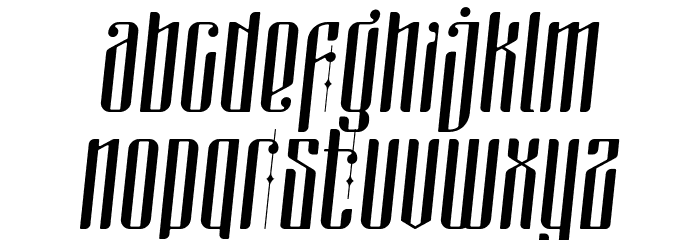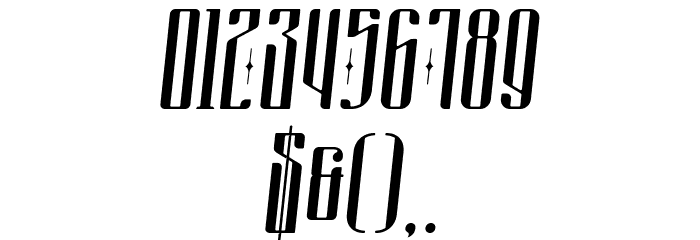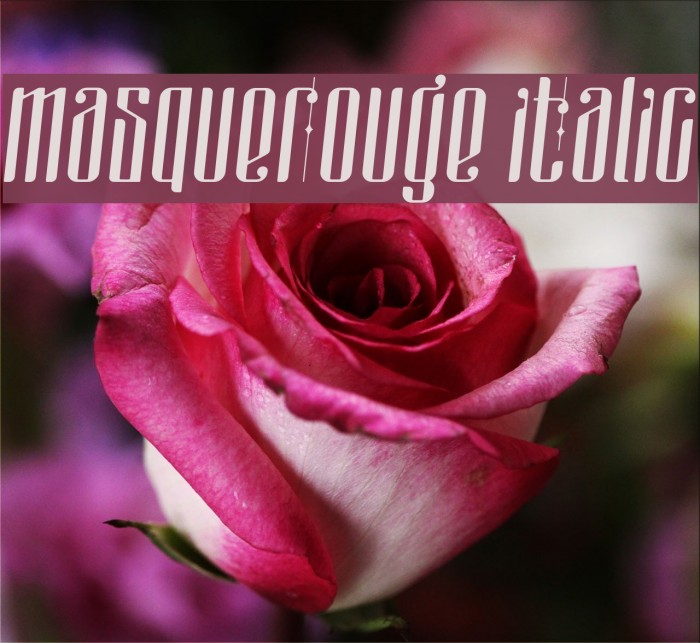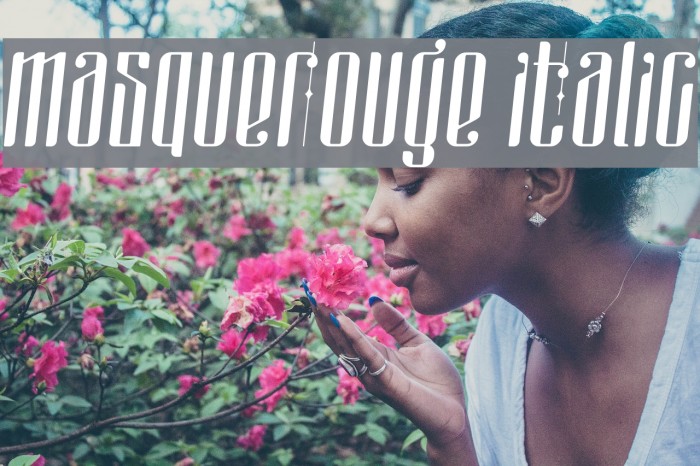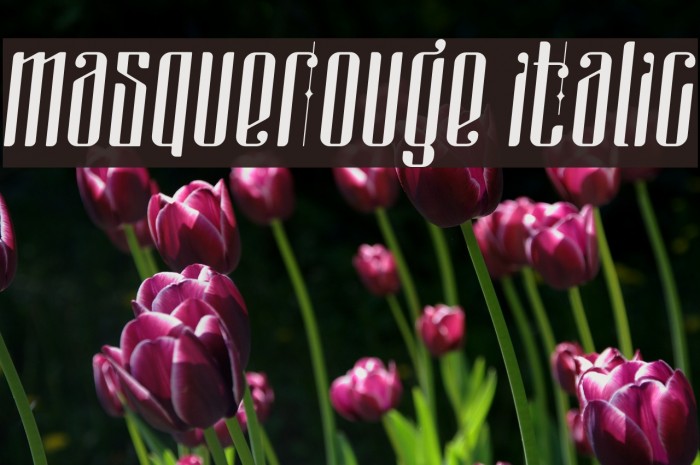
masquerouge italic Font
This font features a striking and elongated design with a distinct italic slant, giving it a dynamic and forward-moving appearance. The characters are tall and narrow, with sharp edges and a modern flair. Unique decorative elements, such as small diamond shapes, are integrated into certain letters, adding an artistic touch. The overall look is sleek and sophisticated, making it suitable for eye-catching designs. The font maintains a consistent stroke width, contributing to its bold and impactful presence.
A sleek, elongated italic font with decorative elements and a modern style.
- Proposed Projects: Ideal for branding, posters, album covers, and any project requiring a bold, modern aesthetic.
- Character Spacing: Tight